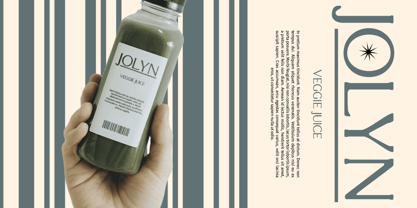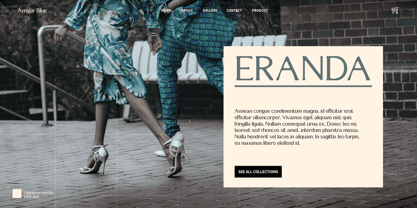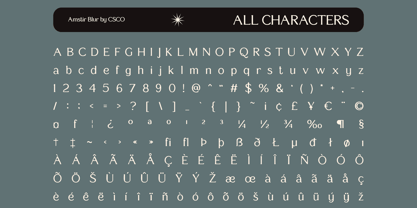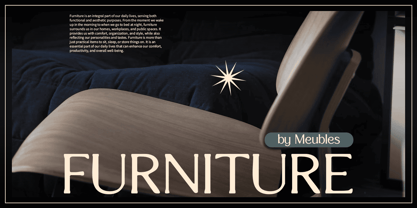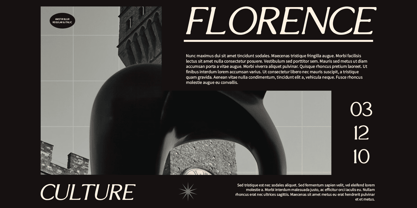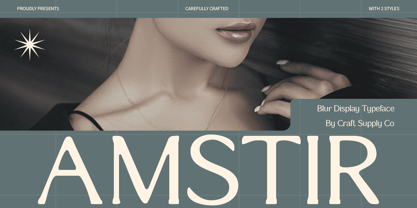
Amstir Blur
by Craft Supply Co
The Amstir Blur Font Family was designed by Trio Nazzar Saputra, Wahyu Hadi Yuana and published by Craft Supply Co. Amstir Blur contains 2 styles and family package options. More about this family
Amstir Blur: Classic Modern Serif Font with a Blur Effect
Sophisticated Modern Serif with Blur Effect
Amstir Blur is a classic modern serif font that seamlessly blends elegant traditional aesthetics with inn ovative modern touches, highlighted by a distinctive blur effect. This font is designed for design projects that seek a harmonious blend of classic sophistication and visually appealing, experimental elements.
Elegance Meets Innovation
Each character of Amstir Blur embodies a timeless elegance enhanced by the contemporary twist of the blur effect. This combination not only ensures readability but also adds a dynamic visual interest to text, making it ideal for creating memorable and refined designs across various applications.
Versatile and Stylish
Whether used for editorial layouts, branding, or digital interfaces, Amstir Blur offers versatility and style. Its ability to merge classic serif features with a modern, experimental blur effect makes it a versatile tool for designers looking to make a statement with their typography.
Create Timeless Designs
Elevate your design projects with Amstir Blur, where classic sophistication meets innovative modern design. Explore the possibilities of combining traditional aesthetics with experimental elements to create visually striking and timeless designs that leave a lasting impression.